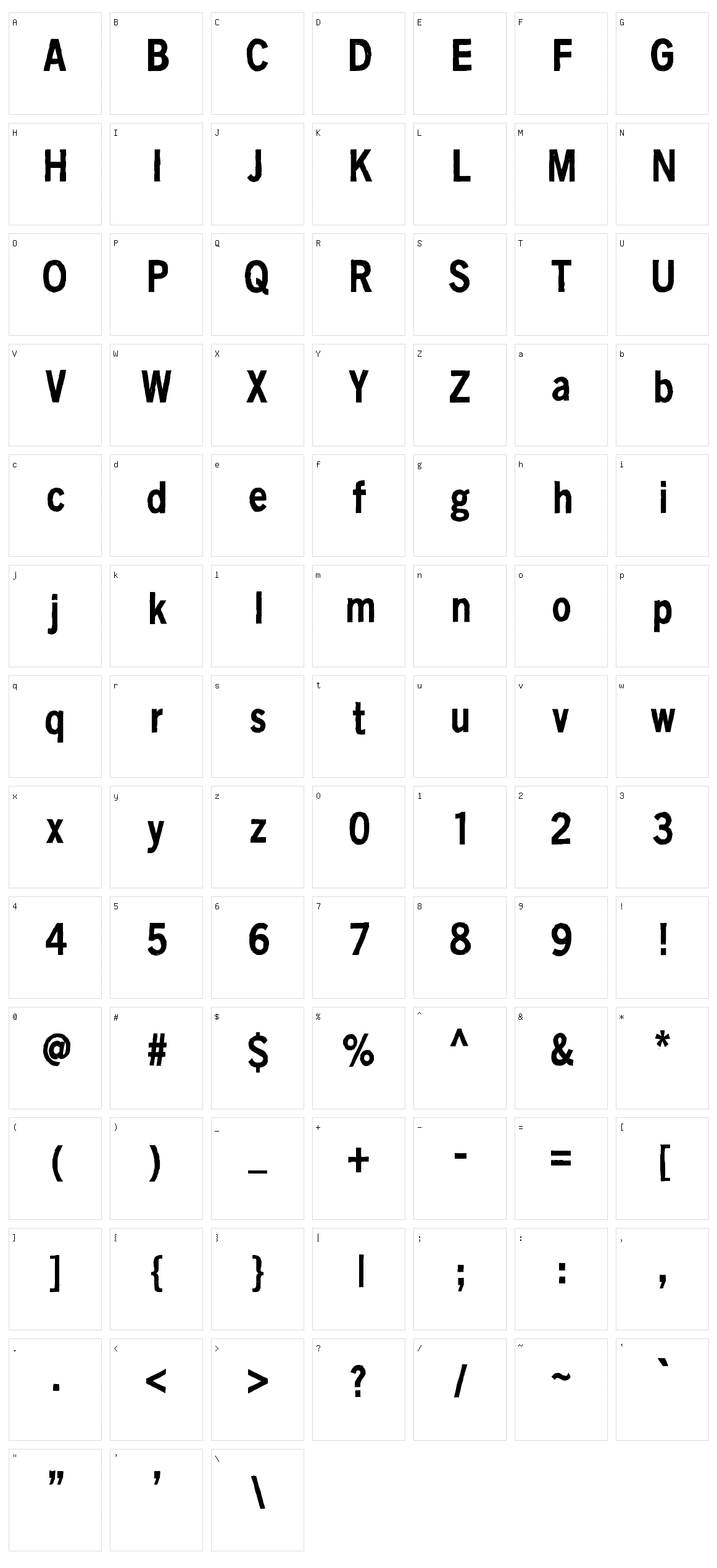
The free font Black is not a color is carefully designed by junkohanhero, showcasing a thoughtful balance of creativity and usability and falls under the Eroded font style. When you download the ZIP file, it contains only 169.61 KB of font files, making it lightweight and quick to download. Please review the license details below to understand permitted usage and distribution rights. If license information is not available, we recommend using this font for personal projects only or contacting the author directly for commercial usage permissions.